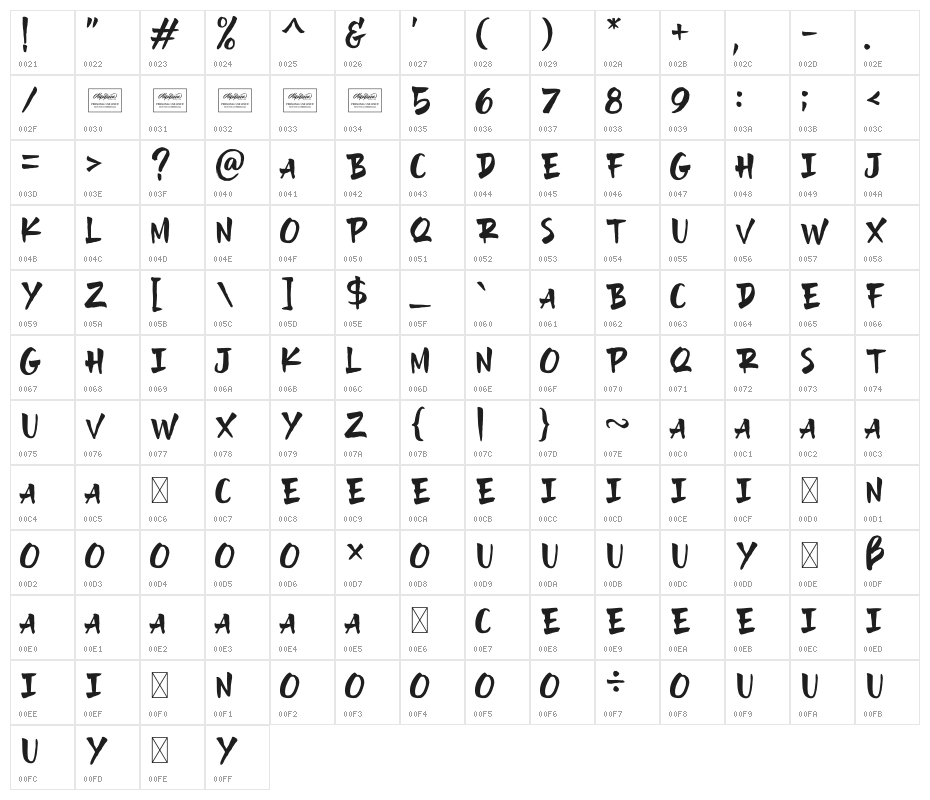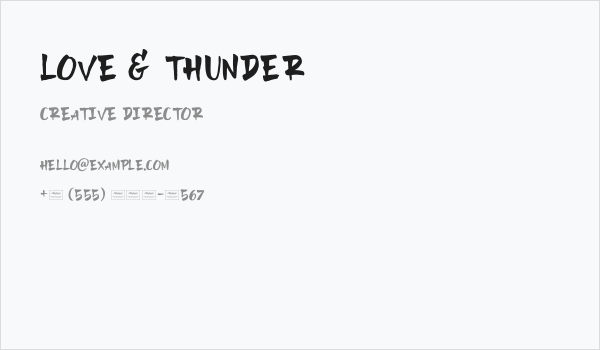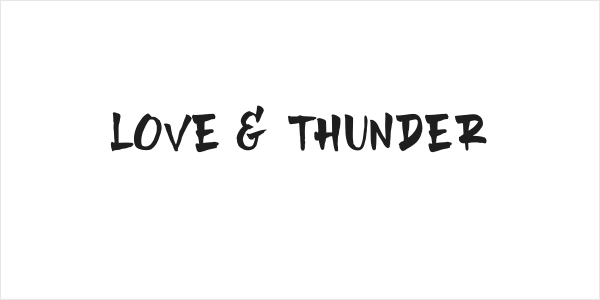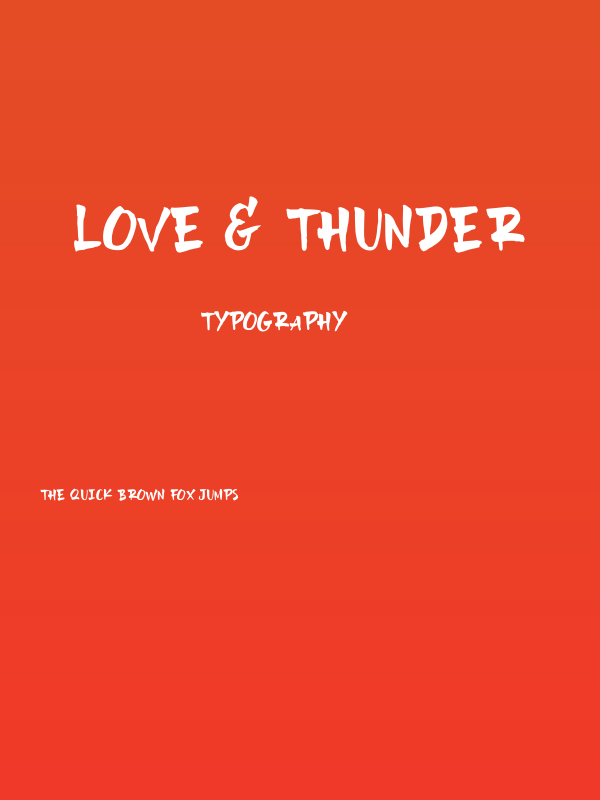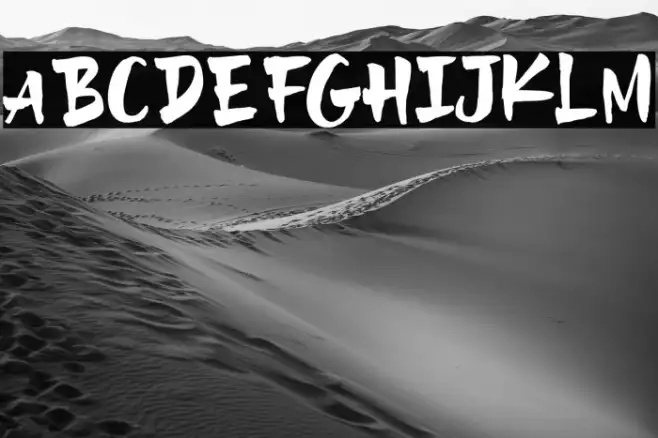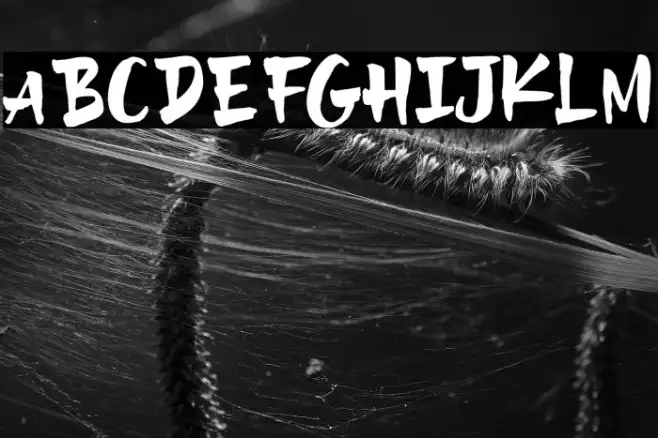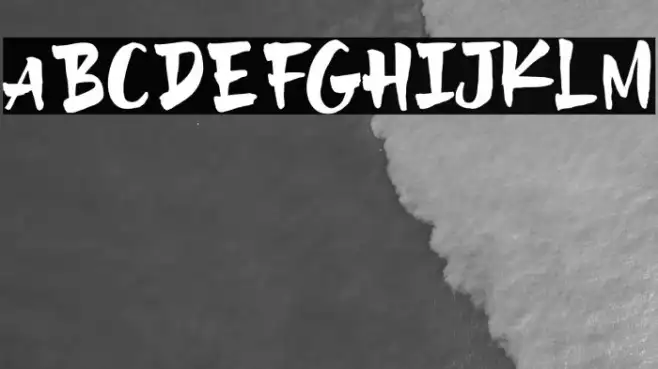
Love & Thunder Font
Love & Thunder Description
This font features a bold and energetic brush style, characterized by its thick strokes and dynamic flow. The uppercase letters are robust and slightly irregular, giving a hand-painted appearance that adds a personal touch. The lowercase letters maintain the same lively aesthetic, with some letters extending slightly below the baseline, enhancing the casual and artistic feel. Numbers and special characters are consistent with the overall style, ensuring a cohesive look across different uses. The font's playful and expressive nature makes it ideal for projects that require a strong visual impact.